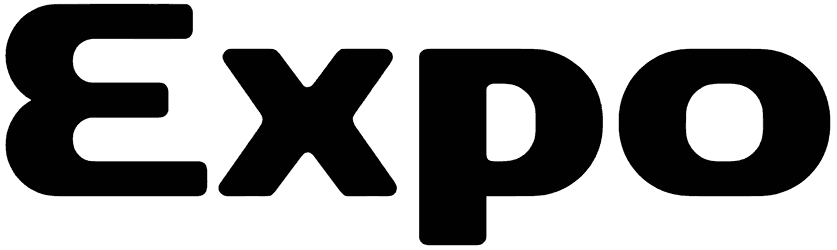
Expo Font
Designed byDon Marciano
Go beyond the limits and use this unique futuristic font to mesmerize your visitors. Expo font has bold and smooth letters, which will provide you with a nice chance to add it to any design, like a new technology advertisement. This robot font has a full cover of characters, and you can easily use it for any text.